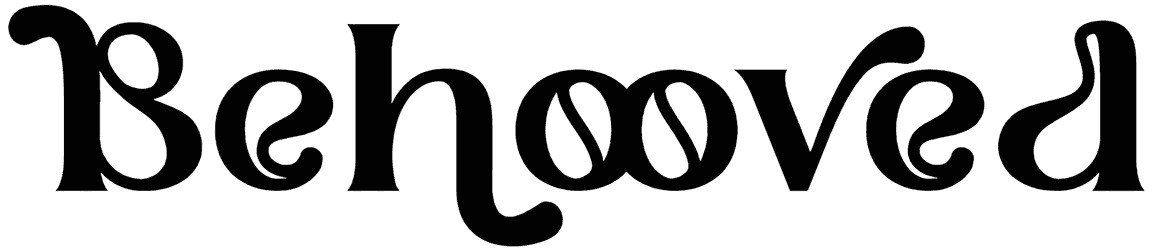
Mullingar Font
If you are looking for a classic serif font then wait and see what Mullingar has to offer. It’s slightly different from other serif fonts, as it has a retro feel, plus it has a modern style to it making it incredible.
The bold and solid characters are excellent for the typography you hope to reach. You will be thrilled to know this serif block font offers mixed case alphabets, numbers, and punctuation. You can utilize the letterforms for articles, magazines, novels, and more.